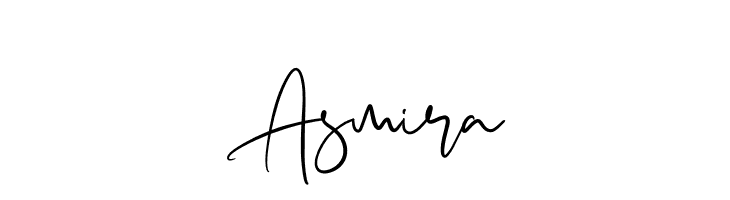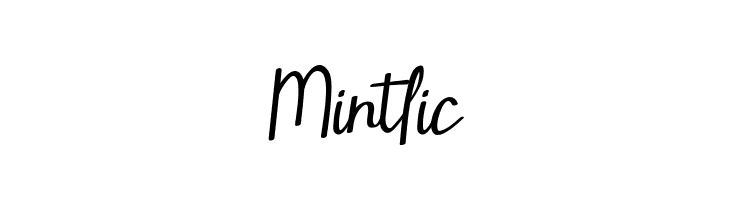
A playful and elegant script font with fluid, connected strokes.
A bold, angular blackletter-style font with dramatic strokes and intricate details.
A bold, playful font with rounded edges and whimsical cutouts.
A bold, italic outline font with a futuristic and dynamic style.
A bold, outline-style font with geometric forms and a modern aesthetic.
A playful, handwritten script font with bold, rounded strokes.
A thin, italic serif font with a refined and elegant style.
A bold, italic, and playful font with rounded edges and smooth curves.
A bold, intricate Blackletter font with a gothic, medieval style.
Bold, italicized outline font with a modern and dynamic style.